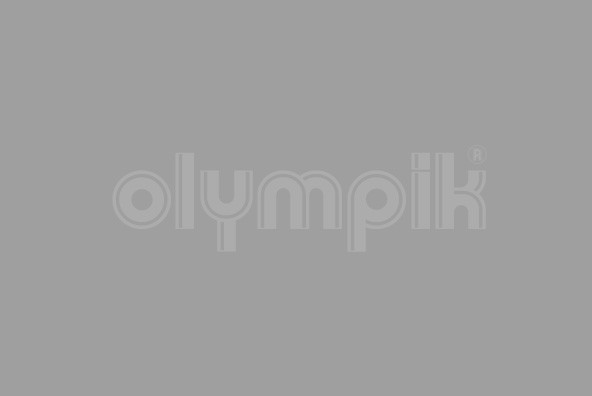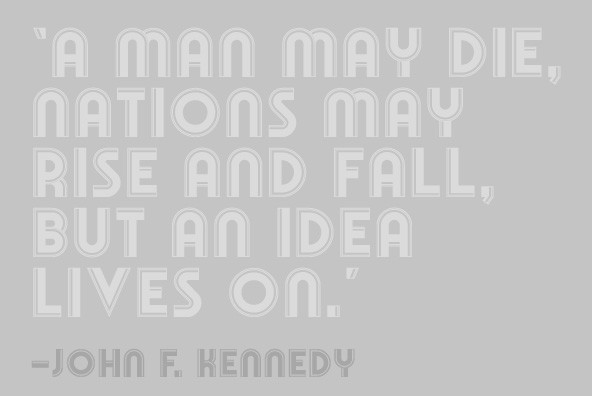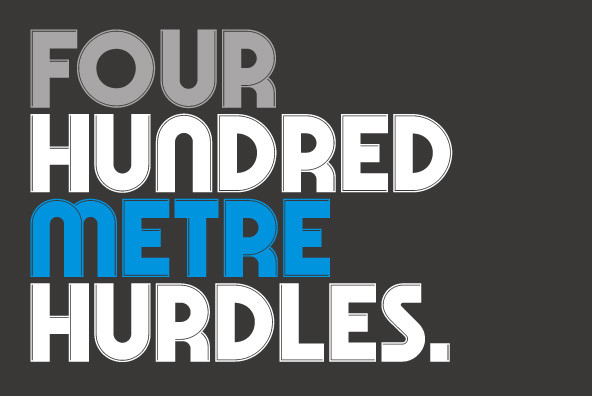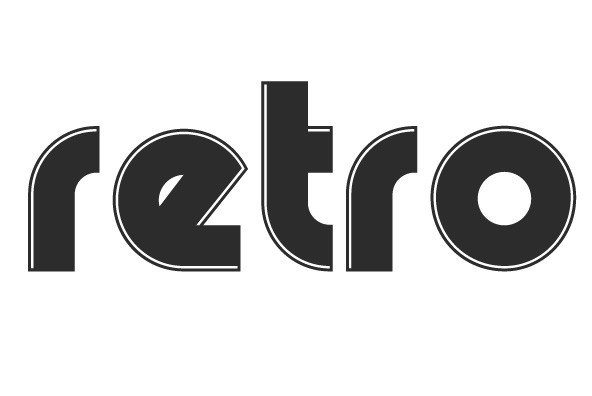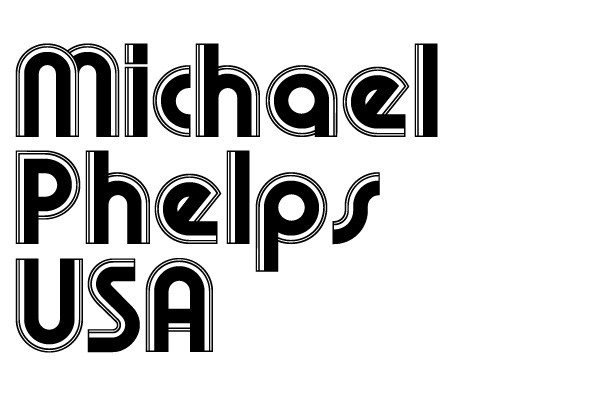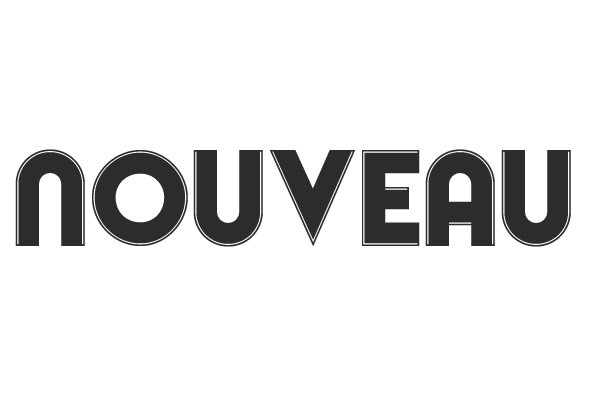
Olympik
Foundry: The Northern Block
A multi-lined typeface digitally remastered from the 1970's Letraset font Optex. The font has gone through an exacting design program with over 100 hours in the production. Details include: three unique styles, a full character set, manually edited kerning and Euro symbol.